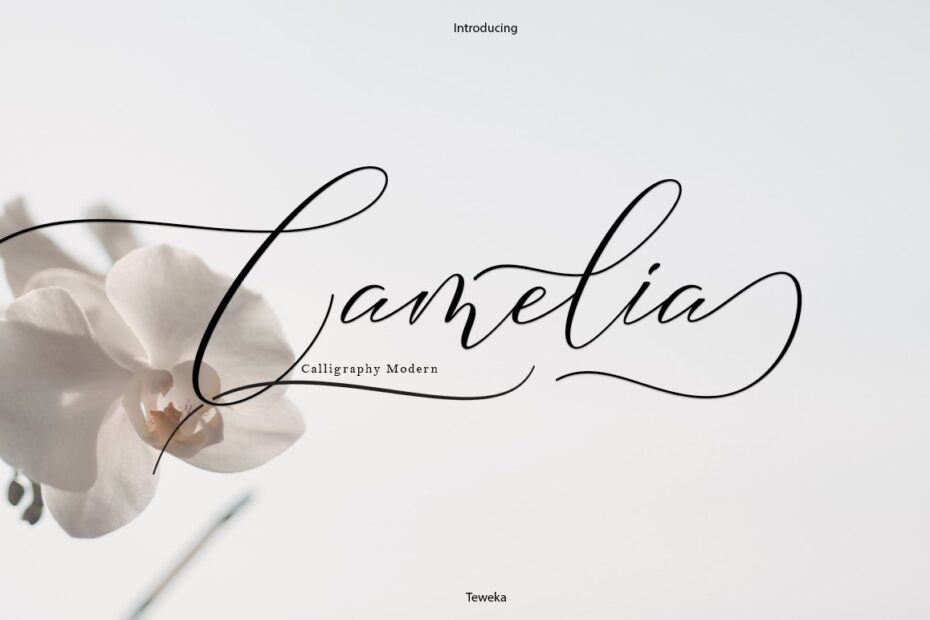
Unleashing Creativity with the Camelia Font
Have you ever stared at a blank page, waiting for the perfect font to spark your next creative project? We’ve all been there. For designers, the right font can be the catalyst that sets off a chain reaction of inspiration. And that’s exactly what the Camelia Font aims to do.
This feature-packed font is more than just a pretty face – it’s a powerhouse of possibilities. With an astonishing 471 unique glyphs and characters, the Camelia Font offers endless opportunities for expression. Whether you’re crafting a logo, designing a brochure, or creating a website, this font is sure to elevate your work to the next level.
Camelia Font Key Features
- Font Family: Camelia is a script font family, designed to resemble handwritten text.
- Size: Offers a wide range of font sizes, from 8pt to 144pt, making it suitable for various design applications.
- Resolution: Designed to work well at high resolutions, making it ideal for printing and digital displays.
- Unique Characteristics: Features a unique, flowing script style with subtle variations in letterforms, giving it a natural and elegant feel.
- Language Support: Supports a wide range of languages, including Latin-based languages, Cyrillic, and Greek.
Designer Review: Camelia Font
Overall, I’d say that Camelia Font is a lovely addition to any design project. Its elegant, refined style makes it perfect for high-end brands and luxury goods. ✨ The font’s clean lines and subtle curves give it a sophisticated feel that’s hard to resist.
- Beautiful, elegant style that’s perfect for luxury brands
- Works well in both digital and print media
- Highly customizable, allowing for subtle adjustments to suit your design
However, there are a few limitations that prevent me from giving it a perfect score. ⚠️ Firstly, the font can be a bit too delicate for certain projects, and may not hold its own against bolder, more attention-grabbing fonts.
Additionally, I found that the font’s OpenType features can be a bit finicky to work with, requiring some trial and error to get the desired results.
Overall, I’d give Camelia Font 4 out of 5 stars. While it’s not perfect, its strengths far outweigh its weaknesses, and it’s a great choice for designers looking for a high-end, sophisticated font.
Tips for Getting the Most Out of Camelia Font
For best results, use Camelia Font in headings and titles to add a touch of elegance and sophistication. You can also use it for body text to create a consistent and cohesive look.
Camelia Font is ideal for:
- Photography and design portfolios
- Any project that requires a touch of sophistication and elegance Alternatives to Camelia Font
Lato Font is a modern sans-serif font designed by Łukasz Dziedzic. It’s suitable for use in web design, print, and digital media. Lato Font is more versatile than Camelia Font, with a larger range of weights and styles. It’s also more readable at smaller font sizes.
When to use: Lato Font is ideal for use in modern websites, apps, and digital products where a clean and minimalist look is desired.
Comparison: While Camelia Font has a more elegant and luxurious feel, Lato Font is more versatile and readable. Lato Font is also more suitable for use in body text, whereas Camelia Font is often used for headings and titles.
Open Sans Font is a popular sans-serif font designed by Steve Matteson. It’s free to use and widely available. Open Sans Font is more legible than Camelia Font, especially at smaller font sizes. It’s also more suitable for use in body text.
When to use: Open Sans Font is ideal for use in websites, apps, and digital products where a clean and readable font is desired.
Comparison: While Camelia Font has a more elegant and luxurious feel, Open Sans Font is more functional and readable. Open Sans Font is also more suitable for use in body text, whereas Camelia Font is often used for headings and titles.
Montserrat Font is a sans-serif font designed by Julieta Ulanovsky. It’s inspired by the urban landscape of Montserrat, Argentina. Montserrat Font is more energetic and modern than Camelia Font, with a larger x-height and more open letterforms. It’s